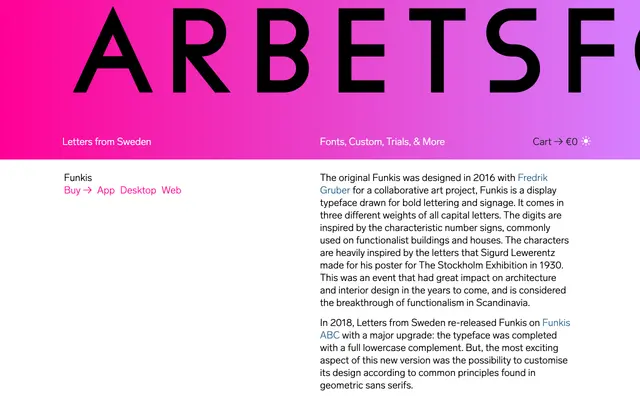
Funkis
Letters from Sweden · Fredrik Gruber, Göran Söderström · 2016
Funkis specimen from Letters from Sweden
A display typeface rooted in Sigurd Lewerentz's lettering for the 1930 Stockholm Exhibition, later expanded into a 120-font variable system with three geometric variants.
Originally drawn in 2016 for a collaborative art project, the face takes direct inspiration from the lettering Sigurd Lewerentz produced for the 1930 Stockholm Exhibition, which marked the arrival of functionalism in Scandinavia. The Funkis ABC expansion added a full lowercase and introduced three design variants: A with strict circular geometry and closed apertures, B with softer curves and open forms, and C with straight horizontal transitions recalling architectural signage. A variable font release covers all 120 static styles, with axes controlling weight, sharpness, terminal style, dot shape and ink traps.
A capitals-first display typeface drawn for bold lettering and signage, rooted in functionalist architectural lettering. The ABC variants introduce geometric, humanist and architectural treatments that align closely with the geometric sans tradition.